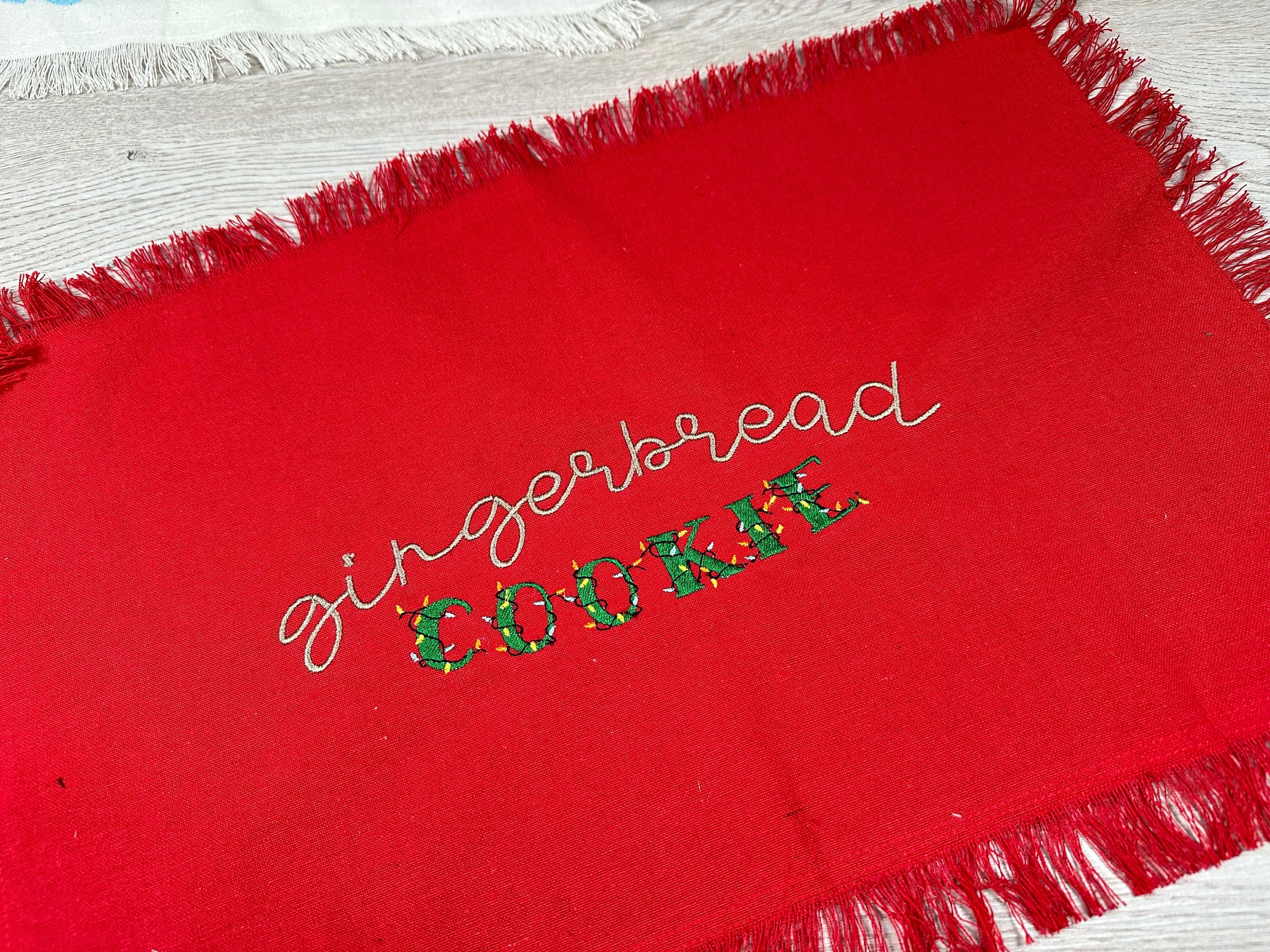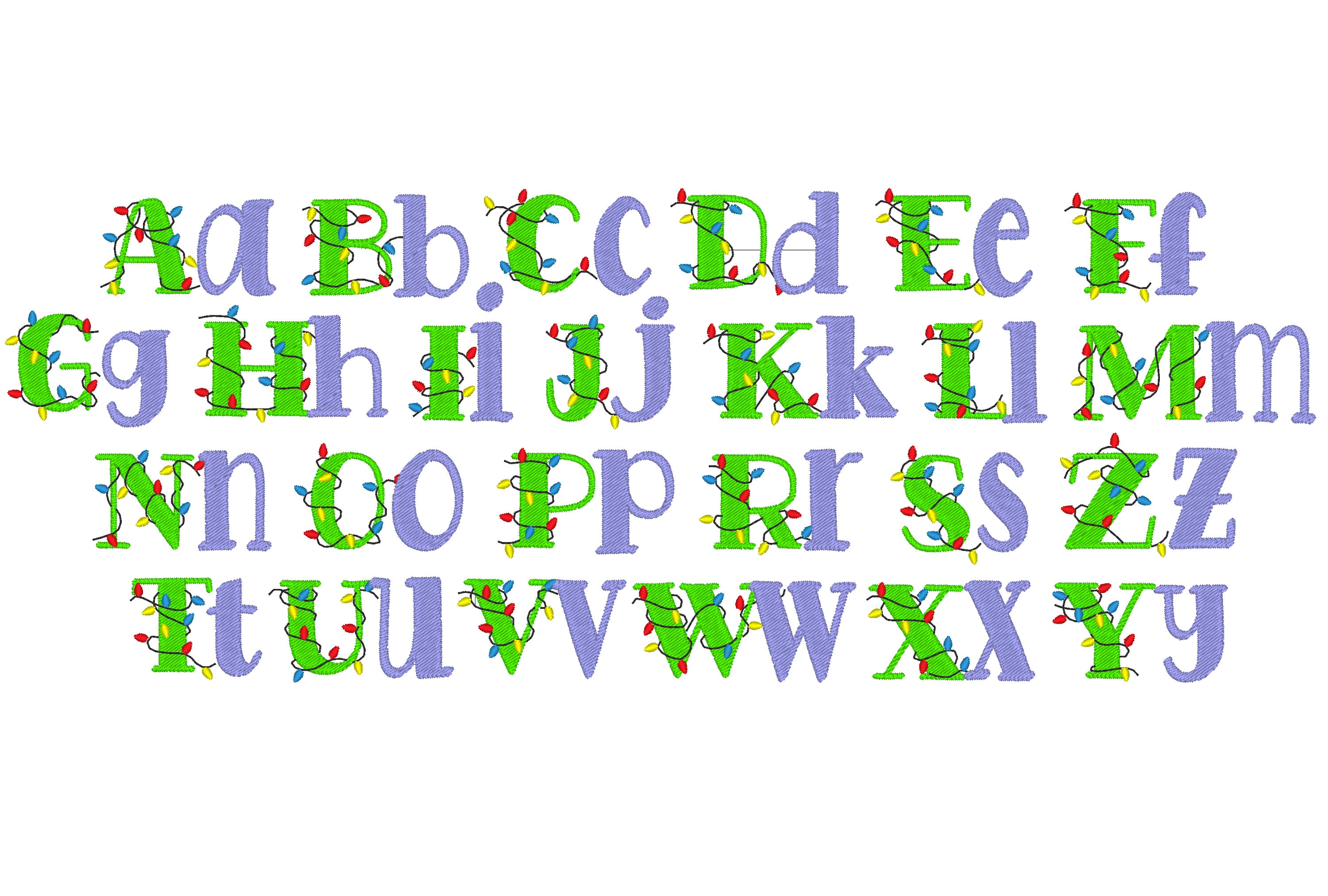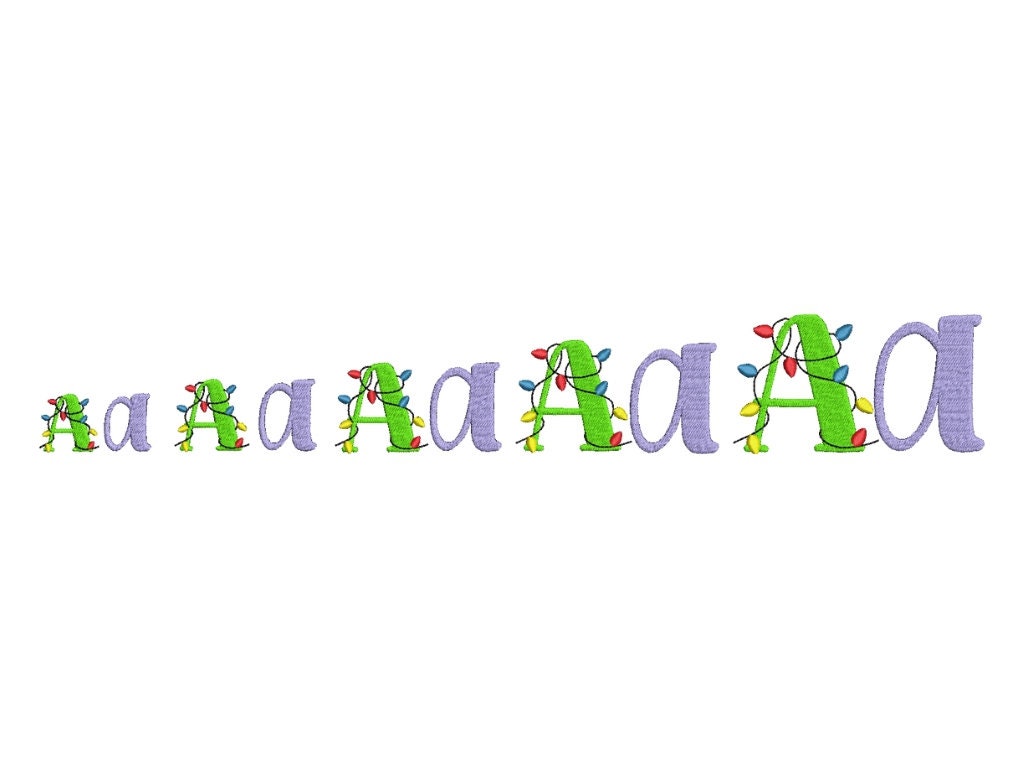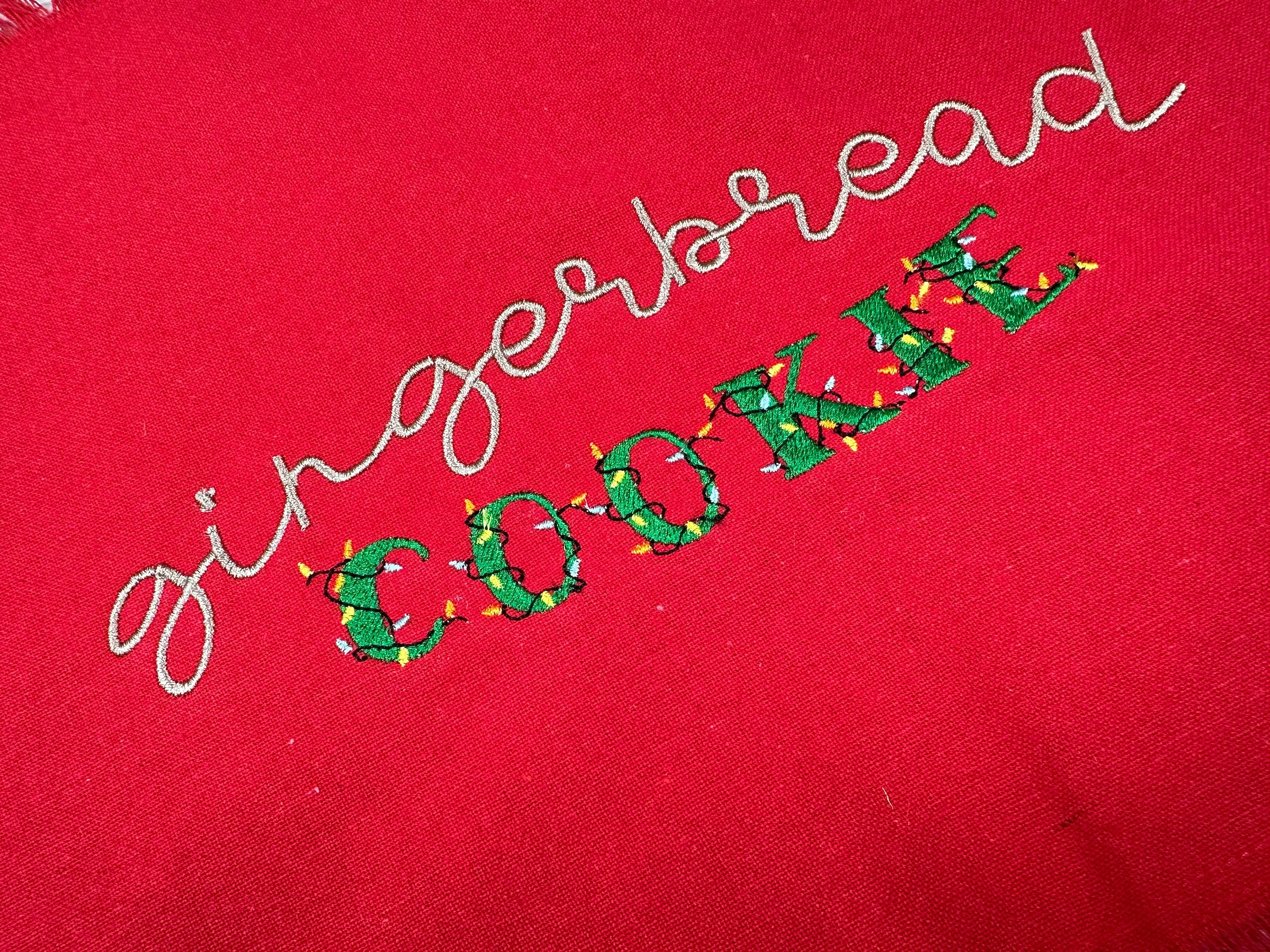
Merry Christmas lights Festive Font machine embroidery designs monogram colorful alphabet letters Block type fill stitch Font sweet home +BX
Merry Christmas lights Festive Font machine embroidery designs monogram colorful alphabet letters Block type fill stitch Font sweet home BX included
Whole alphabet A-Z, uppercase and lowercase letters.